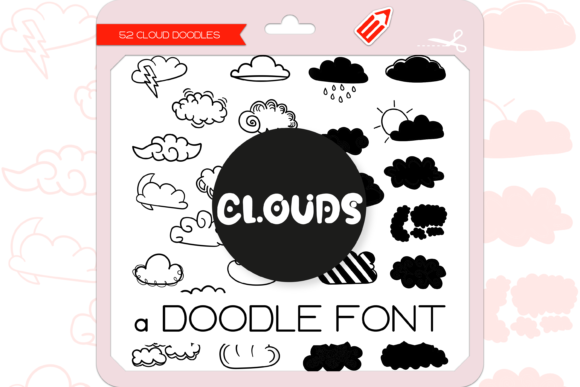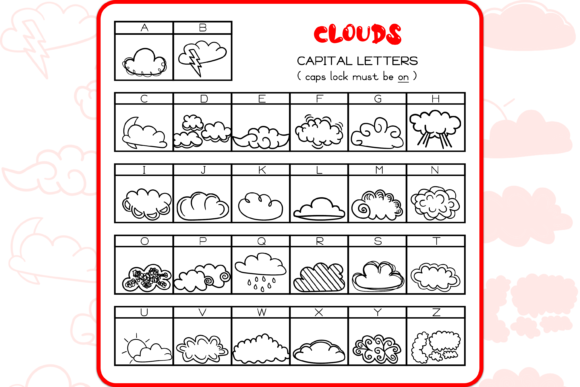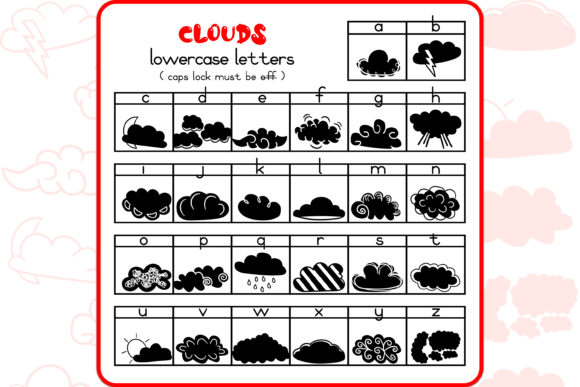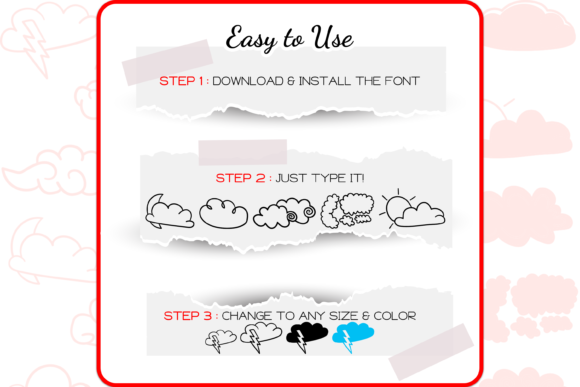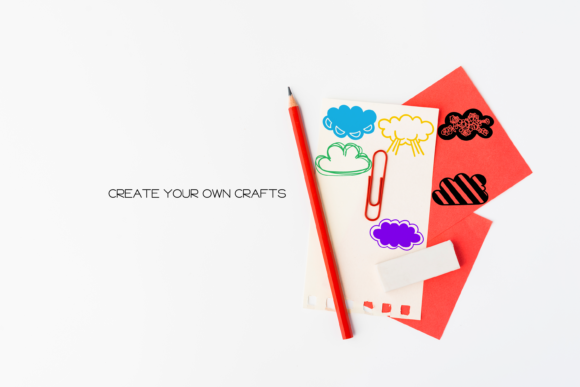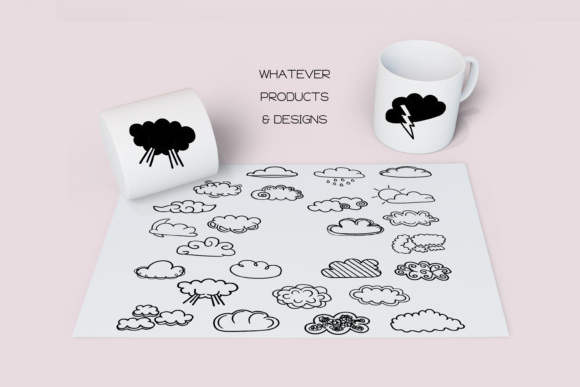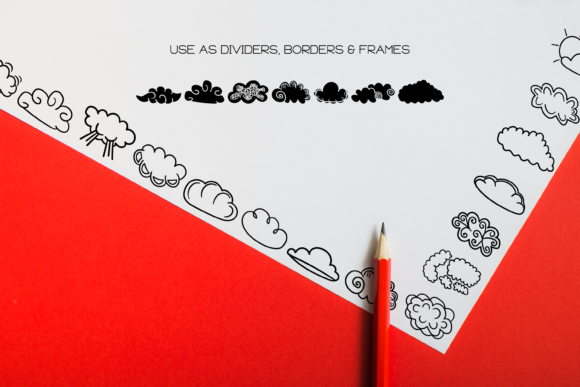
Bringing Your Designs to New Heights
Have you ever stared at a blank page, struggling to find the perfect visual element to bring your creative vision to life? We’ve all been there. Sometimes, it’s not about what you add, but what you take away that makes all the difference. For designers, the right font can be the game-changer that elevates a project from good to great.
Introducing the Clouds Dingbats Font, a set of 52 hand-drawn doodles of fluffy clouds designed to add a touch of whimsy and personality to your designs. From borders to dividers, and frames to creative ideas, this font is the perfect addition to any project. Whether you’re working on a children’s book, a wedding invitation, or a marketing campaign, the Clouds Dingbats Font is sure to make your designs stand out from the crowd.
Clouds Dingbats Font Key Features
- Unique Characteristics: Unique, hand-drawn dingbats and special characters; ideal for creative, whimsical designs
Clouds Dingbats Font Review
Overall, I’m a big fan of the Clouds Dingbats Font, and here’s why:
- ✨ It’s super playful and fun to use, perfect for creating a whimsical atmosphere in designs.
- ✨ The font is highly customizable, allowing for easy adjustments to size, color, and spacing.
- ✨ The dingbats themselves are incredibly detailed and versatile, making it easy to find the right symbol for the job.
However, I do have some reservations:
- ⚠️ The font can feel a bit cluttered when used in large quantities, so be mindful of your design’s overall balance.
- ⚠️ Some of the dingbats may be a bit too ornate for certain designs, so be sure to preview and test before committing.
- ⚠️ The font doesn’t come with a comprehensive character map, so you may need to do some digging to find the symbol you need.
Overall, I’d give the Clouds Dingbats Font a solid 4.5 out of 5 stars. It’s a great addition to any designer’s toolkit, but be aware of its limitations and use it thoughtfully. With a bit of finesse, this font can truly shine and elevate your designs to the next level.
Getting the Most Out of Clouds Dingbats Font
To get the most out of Clouds Dingbats Font, try using it in combination with bold or italic styles to create visual interest. You can also use it to add a playful touch to your designs.
Clouds Dingbats Font is ideal for use in children’s educational materials, graphic novels, and other creative projects where a whimsical font is needed. It’s also a great choice for adding a touch of personality to social media graphics and blog posts.